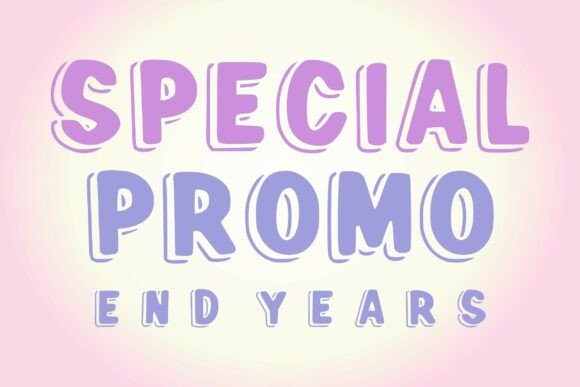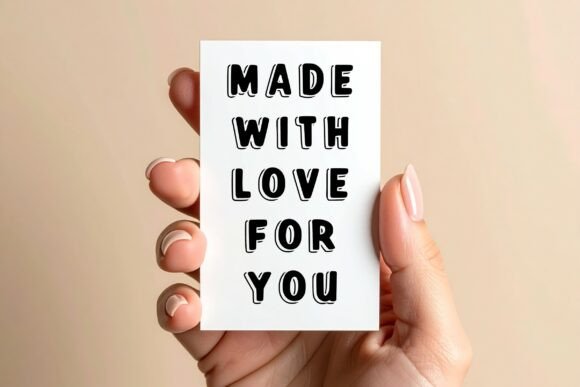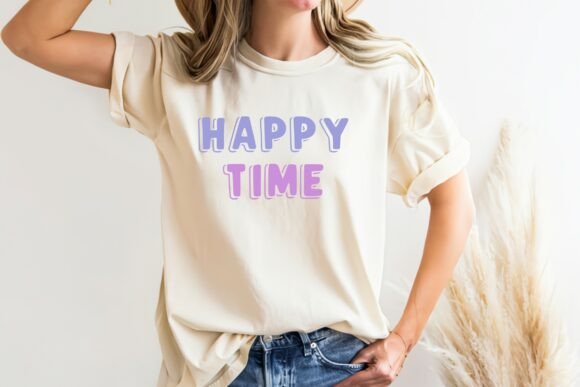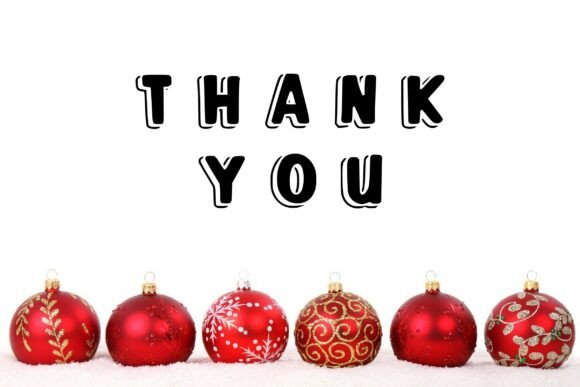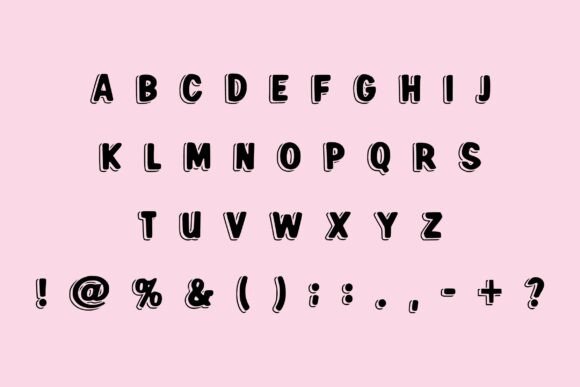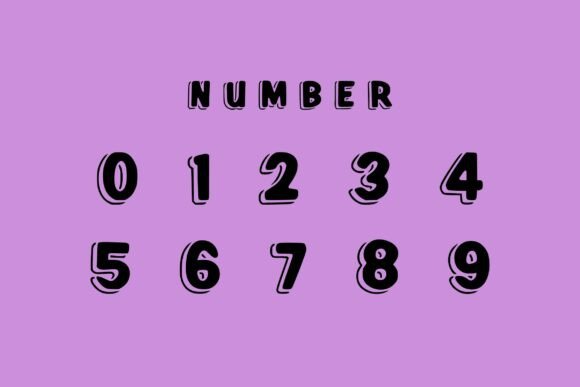
Introduction to Shiny Bubble Font
Shiny Bubble is a sweet and squishy display font bursting with charm.
Its rounded, glossy letters mimic the look of colorful bubblegum, making it a perfect choice for childrenโs designs, kawaii projects, candy packaging, and playful branding .
Key Features of Shiny Bubble Font